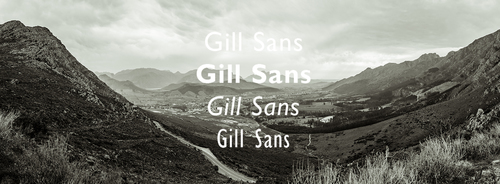
9 Alternatives to the font Gill Sans
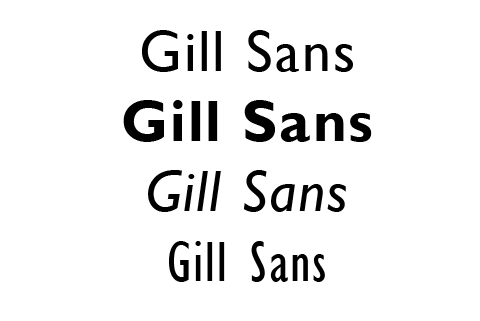
Let's get fashionable. Gill Sans is for sure one of the most used fonts for corporate design in the fashion industry. Whe a brand claims elegance and self confidence this font is a sure shot. But with the wide use (since Mac OSX it's even a standard system font) one brand looks like another, so let's get some alternatives.
Gill Sans
Top Alternatives
Runners up